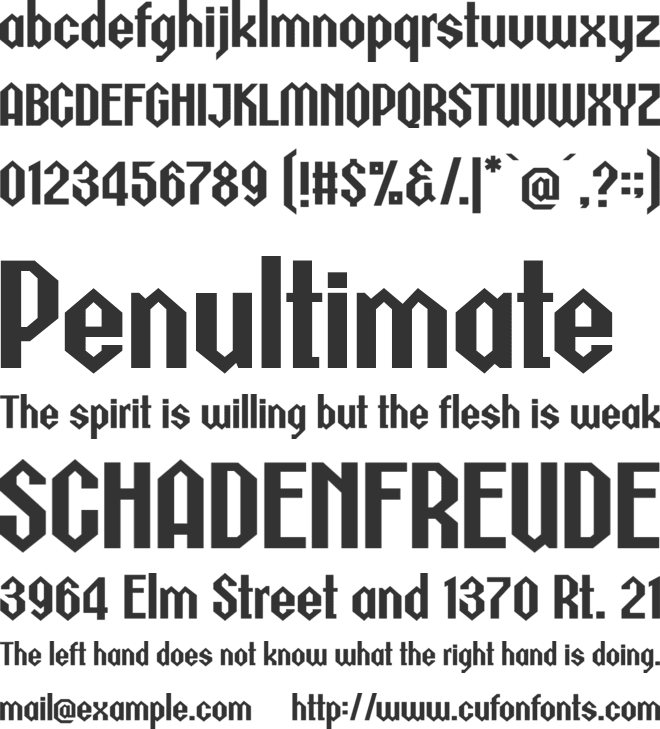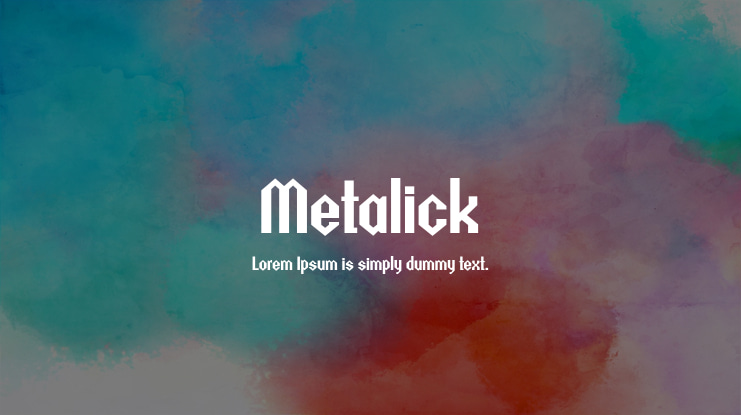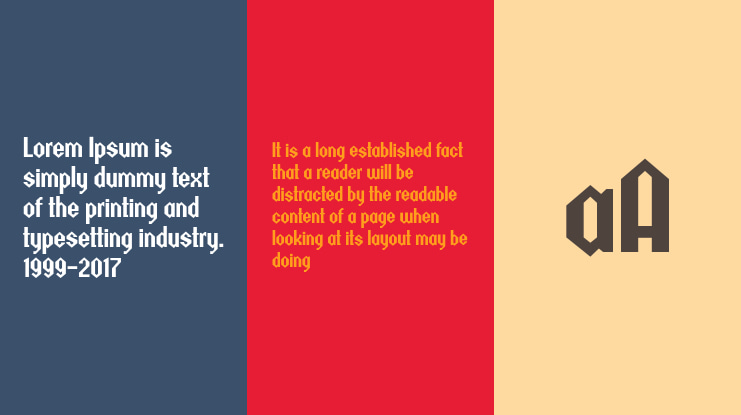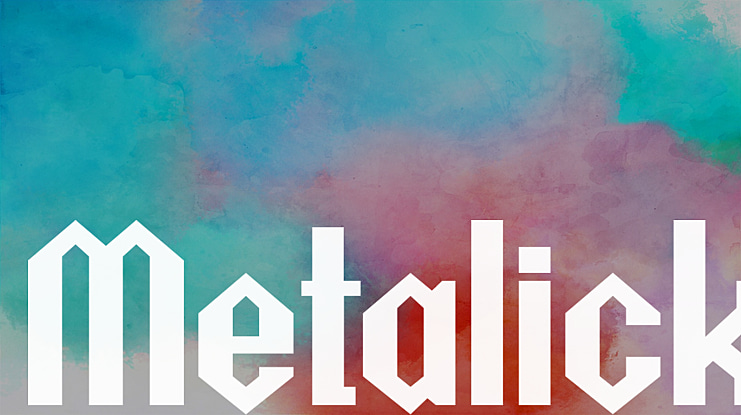
Metalick Font
Introducing a new modern and Hi tech font. This is one of my favorite font, with this neat look angle but not same precisely. With two month hard development and now ready to launch to world. This Metalick font use narrow tracking, and still great when we add extra tracking.
This font will great for logo or title of computer theme, technology, modern, etc or with 3D effects!.
Featured with 275 glyph with complete character for Latin and Eastern Language.